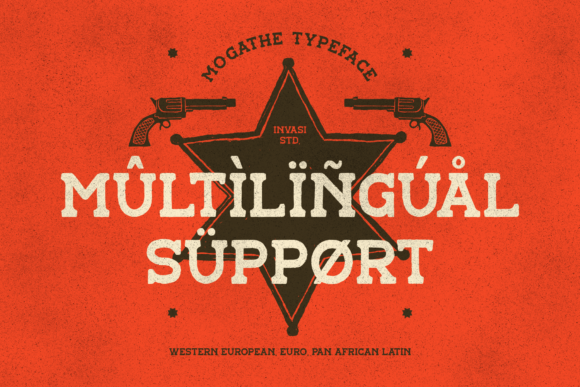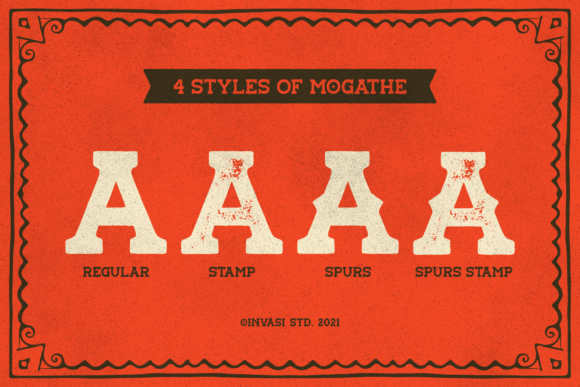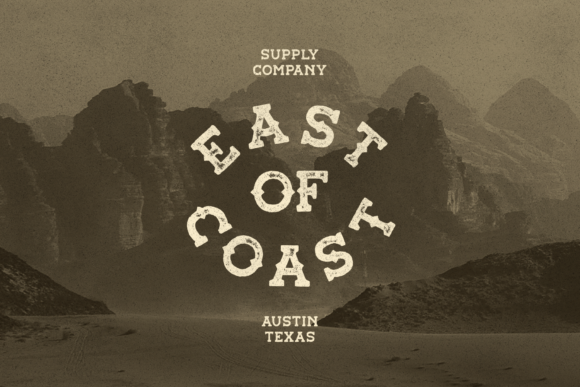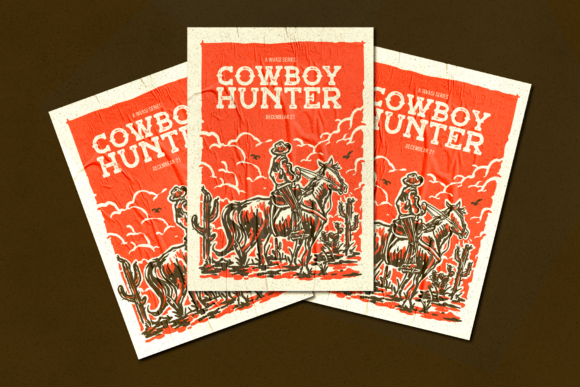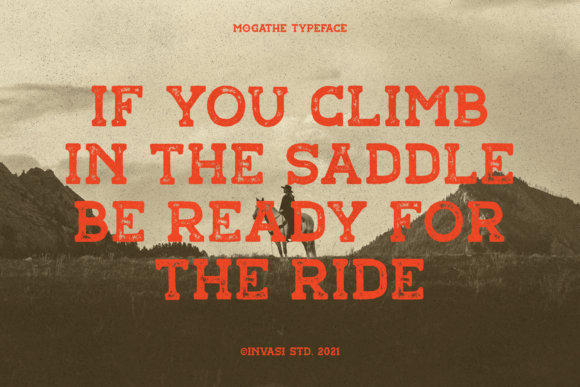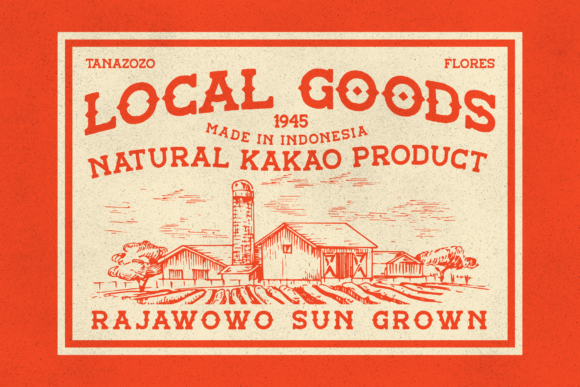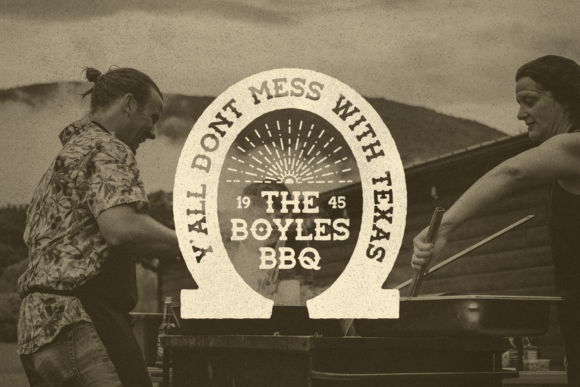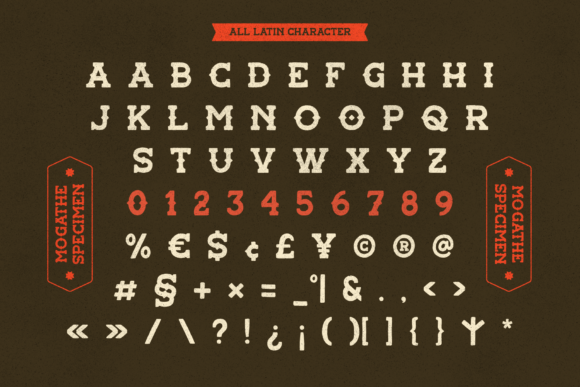
Mogathe Font
MOGATHE FONT SPECIMEN
Introducing Mogathe, a western slab serif font that draws inspiration from the West life Era. With its vintage look and feel, Mogathe captures the essence of a bygone era, adding a touch of nostalgia and charm to your projects. By incorporating Mogathe, you can confidently bring your creative vision to life and witness the delightful results.
Mogathe’s western slab serif design sets it apart as a font that embodies the spirit of the West life Era. Its strong and sturdy letterforms reflect the ruggedness and adventurous nature of the time. The vintage look and feel of Mogathe transport viewers to a nostalgic period, evoking a sense of authenticity and timeless appeal.
When it comes to design projects that require a vintage touch, Mogathe becomes an invaluable asset. Whether it’s retro-inspired branding, old-fashioned signage, or vintage-themed artwork, Mogathe adds an instant layer of authenticity and character. Its unique style captures the essence of the West life Era, allowing your designs to resonate with a sense of history and storytelling.
Mogathe’s vintage look and feel make it a perfect choice for a wide range of projects. From logos and headlines to posters, packaging, and more, Mogathe adds a touch of charm and nostalgia that catches the eye. Whether you’re working on personal projects, client work, or creative endeavors, Mogathe’s vintage aesthetic elevates the visual impact and creates a memorable impression.
The versatility of Mogathe ensures its suitability for various creative applications. It harmonizes beautifully with other design elements, allowing you to blend it seamlessly with illustrations, textures, or other vintage-inspired motifs. Mogathe’s presence in your projects adds a cohesive and captivating visual experience.
In summary, Mogathe is a western slab serif font that embodies the vintage look and feel of the West life Era. Its ability to capture the nostalgia and charm of the past makes it a valuable asset for a wide range of projects. Embrace Mogathe confidently and watch as it brings authenticity, character, and a touch of history to your designs.